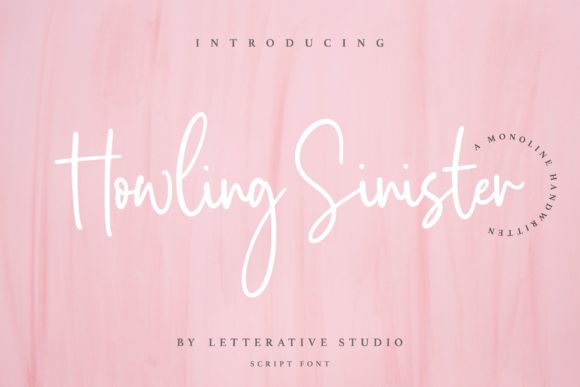
Howling Sinister: Elevating Design with a Trendy Handwritten Font
In the ever-evolving world of design, typography plays a crucial role in shaping the visual identity of brands, websites, and creative projects. Among the many fonts available today, Howling Sinister has emerged as a standout choice for professionals, creators, and entrepreneurs looking to add a unique and elegant touch to their work. This handwritten font is not just a typographic tool—it's a statement of style, creativity, and attention to detail.
What Is Howling Sinister?
Howling Sinister is a beautifully crafted, handwritten font that exudes elegance and charm. Designed to mimic the natural flow of handwriting, it brings a sense of authenticity and warmth to any project. The font features soft curves, subtle variations in stroke width, and an organic feel that makes it highly versatile for both digital and print media.
Unlike more rigid or formal typefaces, Howling Sinister offers a sense of personality and character. It is ideal for use in branding, logos, social media content, invitations, and even packaging. Its unique style allows designers to stand out in a crowded market while maintaining a professional and polished look.
The Rising Popularity of Handwritten Fonts
The increasing popularity of Howling Sinister reflects a broader trend in the design industry toward more personalized and human-centric aesthetics. In recent years, there has been a noticeable shift away from sterile, corporate-type fonts in favor of more expressive and individualistic choices.
This movement aligns with changing consumer preferences. Modern audiences are drawn to brands and content that feel authentic, relatable, and emotionally engaging. Howling Sinister, with its handcrafted appearance, taps into this desire for authenticity and helps create a deeper emotional connection between the brand and its audience.
Why Designers Are Turning to Handwritten Fonts
Designers are increasingly turning to handwritten fonts like Howling Sinister because they offer a fresh alternative to traditional sans-serif and serif typefaces. These fonts can add a sense of intimacy and personalization that is difficult to achieve with more standard options.
Howling Sinister in the Broader Creative Landscape
The rise of Howling Sinister is part of a larger movement within the creative industries toward more expressive and unconventional design elements. As digital tools and platforms continue to evolve, so too do the expectations of consumers and clients who seek innovative and memorable experiences.
For example, in the realm of digital marketing, brands are increasingly using handwritten fonts to craft visually appealing content that resonates with younger, more socially conscious audiences. Howling Sinister can be used to create eye-catching headlines, call-to-action buttons, and promotional materials that stand out in a sea of uniformity.
Similarly, in the world of branding, businesses are recognizing the power of typography in shaping brand perception. A well-chosen font can convey a brand’s personality, values, and mission. Howling Sinister offers a perfect blend of sophistication and playfulness, making it suitable for a wide range of industries—from fashion and lifestyle to technology and education.
Practical Applications of Howling Sinister
The versatility of Howling Sinister makes it a valuable asset for various creative and business applications. Here are a few practical examples of how this font can be used effectively:
1. Branding: Incorporate Howling Sinister into logos, business cards, and letterheads to create a cohesive and stylish brand identity.
2. Digital Marketing: Use the font in website headers, blog posts, and social media graphics to enhance readability and visual appeal.
3. Print Media: Apply it to invitations, posters, and packaging designs to add a personal and artistic touch.
4. Email Marketing: Leverage the font in subject lines and body text to make emails more engaging and visually appealing.
The Future of Typography and Design Trends
As we move further into the digital age, the importance of typography in design will only continue to grow. With the rise of artificial intelligence and automation, there is a growing emphasis on human-centric design elements that bring warmth, emotion, and individuality to digital spaces.
Howling Sinister is at the forefront of this trend, offering a unique solution for those looking to infuse their work with personality and charm. Whether you're a designer, marketer, entrepreneur, or creative professional, incorporating this font into your workflow can help you stay ahead of the curve and meet the evolving expectations of your audience.